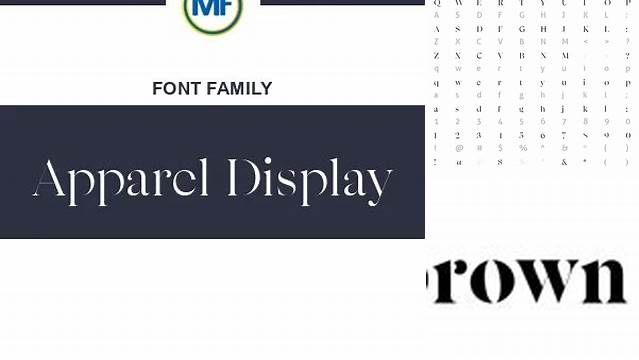
Hey guys! Are you on the hunt for the perfect apparel display font to make your designs pop? Look no further! Finding the right font can be a game-changer, especially when you're trying to create a visual identity that screams style and sophistication. Whether you're designing logos, posters, or even website headers, the font you choose can make or break your message. So, let's dive into the world of free apparel display fonts and explore some amazing options that you can download right now! We'll cover everything from classic serif fonts to modern sans-serif options, and even some cool script fonts that will add a touch of elegance to your projects. So, buckle up and get ready to discover the best free fonts for your next apparel design project!
1. Classic Serif Fonts for Apparel Displays
When it comes to apparel display, classic serif fonts are always a solid choice. These fonts exude a sense of timeless elegance and sophistication, making them perfect for brands that want to convey a sense of tradition and quality. Think of brands like Gucci or Ralph Lauren – they often use serif fonts to project a high-end image. A good serif font can add a touch of class to your apparel display, whether it's on a storefront sign or a product label. Some popular serif fonts include Times New Roman, Georgia, and Garamond. These fonts are highly legible and have a classic appeal that never goes out of style. But, you don't have to stick with the basics! There are tons of variations and unique serif fonts out there that you can download for free. Experiment with different weights and styles to find the perfect fit for your brand. Remember, the right serif font can make your apparel display look both professional and stylish. So, don't underestimate the power of a well-chosen classic font!
2. Modern Sans-Serif Fonts for Apparel Displays
If you're aiming for a more contemporary and minimalist look, modern sans-serif fonts are the way to go for your apparel display. These fonts are clean, crisp, and convey a sense of modernity and innovation. Think of brands like Nike or Adidas – they often use sans-serif fonts to project a sleek and forward-thinking image. A good sans-serif font can make your apparel display look fresh and up-to-date. Some popular sans-serif fonts include Helvetica, Arial, and Open Sans. These fonts are highly legible and have a clean, uncluttered look that works well in a variety of contexts. But, just like with serif fonts, there are tons of variations and unique sans-serif fonts out there that you can download for free. Consider fonts like Montserrat, Lato, or Roboto – they offer a modern feel without sacrificing readability. Experiment with different weights and styles to find the perfect fit for your brand. The right sans-serif font can make your apparel display look both professional and cutting-edge. So, if you're going for a modern vibe, sans-serif is your best bet!
3. Script Fonts for Elegant Apparel Displays
For those seeking to add a touch of elegance and personality to their apparel display, script fonts are an excellent choice. These fonts mimic the fluidity of handwriting and can convey a sense of luxury, creativity, and individuality. Imagine brands like Chanel or Dior – they often use script fonts in their logos and marketing materials to evoke a sense of sophistication and exclusivity. A well-chosen script font can instantly elevate your apparel display, whether it's on a garment tag or a promotional banner. Some popular script fonts include Brush Script, Pacifico, and Great Vibes. These fonts have a flowing, handwritten quality that adds a touch of artistry to your designs. However, it's important to use script fonts sparingly and ensure they are legible, especially in smaller sizes. Too much flourish can make your text difficult to read, which is the last thing you want. There are many beautiful script fonts available for free download, so take your time to find one that perfectly captures the essence of your brand. Experiment with different styles – from formal calligraphy to playful brushstrokes – to create a unique and memorable apparel display.
4. Vintage Fonts for Retro Apparel Designs
If you're aiming for a retro or vintage aesthetic, vintage fonts are your best friend for apparel displays. These fonts evoke a sense of nostalgia and can add character and charm to your designs. Think of classic brands like Coca-Cola or Levi's – they often use vintage-inspired fonts to tap into a sense of history and authenticity. A good vintage font can make your apparel display stand out, whether it's on a t-shirt design or a storefront window. There are tons of vintage fonts available for free download, ranging from bold, industrial styles to elegant, script-like options. Consider fonts with distressed textures or unique serifs to really capture that vintage feel. Some popular choices include Bebas Neue, Oswald, and Lobster. But, don't be afraid to explore lesser-known fonts to find something truly unique. Remember, the key to using vintage fonts effectively is to pair them with complementary design elements and colors that reinforce the retro vibe. So, if you're looking to add a touch of the past to your apparel display, vintage fonts are the way to go!
5. Bold Fonts for Eye-Catching Apparel Displays
When you need to make a statement, bold fonts are the way to go for your apparel display. These fonts command attention and can ensure your message is seen and remembered. Think of brands that want to project confidence and strength – they often use bold fonts in their logos and marketing materials. A bold font can make your apparel display pop, whether it's on a billboard or a website header. There are tons of bold fonts available for free download, in a variety of styles – from classic sans-serifs to quirky display fonts. Some popular choices include Montserrat Black, Roboto Bold, and Impact. But, don't limit yourself to the usual suspects! Explore different weights and styles to find a bold font that perfectly matches your brand's personality. Just remember to use bold fonts strategically – too much boldness can overwhelm the viewer. Pair them with lighter fonts and plenty of white space to create a balanced and visually appealing design. So, if you want your apparel display to make a lasting impression, a bold font is a must!
6. Narrow Fonts for Modern Apparel Branding
For a sleek and contemporary look in apparel branding, narrow fonts are an excellent choice. These fonts, also known as condensed fonts, offer a modern aesthetic while maximizing space, making them ideal for logos, labels, and other design elements where space is at a premium. The slender letterforms of narrow fonts project an air of sophistication and efficiency, often associated with high-fashion and minimalist brands. Several free options are available for download, ranging from sans-serif to serif styles, each with its unique character. Using narrow fonts can add a distinct touch to your apparel display, whether used in garment tags, product descriptions, or even in-store signage. Consider using narrow fonts to create a contrast with broader fonts for a dynamic typographic hierarchy, ensuring your message is not only legible but also visually engaging. For brands seeking a modern and streamlined image, narrow fonts are a versatile and effective tool.
7. Wide Fonts for Impactful Apparel Designs
If making a strong visual impact is your goal, wide fonts are a powerful tool for apparel designs. These fonts, with their expanded letterforms, demand attention and can fill space effectively, making them perfect for headlines, banners, and other large-format applications. The bold presence of wide fonts exudes confidence and can help your message stand out in a crowded marketplace. There are various wide fonts available for free download, ranging from robust sans-serifs to stylish serifs, each offering a different vibe. Incorporating wide fonts into your apparel display can significantly enhance its visual appeal, whether used on clothing, packaging, or promotional materials. When used judiciously, wide fonts can convey a sense of authority and creativity. Experiment with different weights and styles to find the perfect wide font that aligns with your brand's identity. For a design that speaks volumes, consider leveraging the commanding presence of wide fonts.
8. Rounded Fonts for Friendly Apparel Brands
To convey a sense of approachability and warmth, rounded fonts are an excellent choice for apparel brands. The soft, curved edges of these fonts project a friendly and inviting image, making them ideal for brands targeting a younger audience or those emphasizing comfort and casual wear. Rounded fonts can evoke feelings of playfulness and modernity, setting a positive tone for your brand's messaging. Numerous rounded fonts are available for free download, spanning various weights and styles, from light and airy to bold and substantial. Incorporating rounded fonts into your apparel display can create a welcoming atmosphere, whether used on signage, websites, or product labels. By choosing rounded fonts, you communicate a sense of openness and reliability, fostering a connection with your customers. For brands aiming to build trust and create a positive impression, rounded fonts are a valuable asset.
9. Distressed Fonts for Edgy Apparel Displays
For brands aiming to project a raw, unconventional image, distressed fonts are an ideal choice for apparel displays. These fonts, with their weathered and imperfect appearance, add character and authenticity to designs, making them perfect for streetwear, vintage-inspired clothing, or brands that value a rebellious aesthetic. Distressed fonts can evoke a sense of history and resilience, giving your brand a unique edge. Many distressed fonts are available for free download, ranging from subtle textures to heavily eroded designs. Utilizing distressed fonts in your apparel display can convey a sense of individuality and nonconformity, whether used on clothing, logos, or promotional materials. By embracing imperfections, distressed fonts help brands stand out and connect with customers who appreciate authenticity and originality. For a design that challenges the norm, consider the impactful presence of distressed fonts.
10. Slab Serif Fonts for Strong Apparel Messaging
When you need a font that commands attention and conveys authority, slab serif fonts are an excellent choice for apparel messaging. These fonts, characterized by their thick, block-like serifs, have a bold and sturdy appearance, making them perfect for headlines, logos, and other prominent design elements. Slab serif fonts project a sense of strength and reliability, often associated with vintage and industrial styles. Numerous slab serif fonts are available for free download, ranging from classic designs to modern interpretations. Incorporating slab serif fonts into your apparel display can create a powerful visual statement, whether used on signage, product labels, or promotional materials. Their distinct character ensures your message is not only seen but also remembered. For brands seeking to communicate confidence and durability, slab serif fonts are a reliable option.
11. Handwritten Fonts for Personal Apparel Touches
To add a personal and intimate touch to your apparel designs, handwritten fonts are an excellent choice. These fonts, mimicking the natural flow of handwriting, convey a sense of authenticity and individuality, making them perfect for brands aiming to connect with customers on a more personal level. Handwritten fonts can evoke feelings of warmth and creativity, adding a unique character to your messaging. Several handwritten fonts are available for free download, ranging from elegant scripts to casual penmanship styles. Utilizing handwritten fonts in your apparel display can create a welcoming and approachable feel, whether used on garment tags, thank-you notes, or website headers. By incorporating this personal touch, you can foster a stronger connection with your audience and differentiate your brand. For designs that feel genuine and heartfelt, consider the charm of handwritten fonts.
12. Calligraphy Fonts for Luxurious Apparel Brands
For brands seeking to exude sophistication and elegance, calligraphy fonts are an ideal choice for apparel branding. These fonts, inspired by the art of beautiful handwriting, convey a sense of luxury and refinement, making them perfect for high-end fashion, formal wear, and other premium apparel brands. Calligraphy fonts add a touch of timeless beauty and artistic flair to your designs. Many calligraphy fonts are available for free download, ranging from classic scripts to modern interpretations. Incorporating calligraphy fonts into your apparel display can elevate its visual appeal, whether used on logos, invitations, or promotional materials. Their graceful and flowing letterforms communicate quality and attention to detail. For brands aiming to project an image of opulence and style, calligraphy fonts are an invaluable asset.
13. Geometric Fonts for Modern Apparel Aesthetics
To achieve a sleek and contemporary look, geometric fonts are a top choice for modern apparel aesthetics. These fonts, characterized by their clean lines and precise shapes, convey a sense of modernity and efficiency, making them ideal for brands that value innovation and minimalism. Geometric fonts project a sense of order and clarity, often associated with technology and forward-thinking design. Numerous geometric fonts are available for free download, ranging from classic designs to avant-garde styles. Incorporating geometric fonts into your apparel display can create a visually striking and sophisticated look, whether used on websites, packaging, or in-store signage. Their distinct character ensures your brand stands out with a contemporary edge. For brands seeking a cutting-edge image, geometric fonts are a versatile and effective tool.
14. Outline Fonts for Creative Apparel Designs
To add a unique and eye-catching element to your apparel designs, consider using outline fonts. These fonts, featuring hollow letterforms, offer a creative and modern twist, making them perfect for headlines, logos, and other design elements where visual impact is key. Outline fonts create a sense of lightness and sophistication, allowing background colors and textures to show through. Many outline fonts are available for free download, ranging from bold and chunky styles to delicate and refined designs. Incorporating outline fonts into your apparel display can make it stand out and add a touch of originality, whether used on clothing, posters, or promotional materials. Their distinct appearance ensures your message is noticed. For brands seeking to express creativity and innovation, outline fonts are a valuable design asset.
15. 3D Fonts for Dynamic Apparel Displays
For an apparel display that truly pops, 3D fonts can add a dynamic and engaging visual element. These fonts, designed to appear three-dimensional, create depth and dimension, making them perfect for headlines, logos, and other design features that need to capture attention. 3D fonts convey a sense of modernity and creativity, often associated with technology and innovation. Several 3D fonts are available for free download, ranging from bold and chunky styles to sleek and futuristic designs. Incorporating 3D fonts into your apparel display can significantly enhance its visual impact, whether used on websites, posters, or in-store signage. Their unique appearance ensures your brand stands out in a crowded marketplace. For brands seeking to make a bold statement, 3D fonts are an effective and versatile option.
16. Layered Fonts for Unique Apparel Typography
To create truly unique and captivating apparel typography, layered fonts offer an exceptional solution. These fonts, designed with multiple layers that can be combined in various ways, provide endless possibilities for customization and visual effects. Layered fonts add depth and dimension, allowing you to create striking headlines, logos, and other design elements. They convey a sense of creativity and sophistication, often associated with bespoke and high-end designs. A variety of layered fonts are available for free download, ranging from vintage-inspired styles to modern geometric designs. Incorporating layered fonts into your apparel display can significantly enhance its visual appeal, whether used on clothing, packaging, or promotional materials. Their versatility ensures your brand stands out with a unique and personalized touch. For brands seeking to push the boundaries of design, layered fonts are an invaluable tool.
17. Color Fonts for Vibrant Apparel Branding
For vibrant apparel branding, color fonts offer a revolutionary way to incorporate visual interest directly into your typography. Unlike traditional fonts, color fonts include color information within the font file itself, allowing for multicolored letters and intricate designs. This eliminates the need for manual layering and coloring, streamlining the design process. Color fonts add a dynamic and modern element to your messaging, making them perfect for logos, headlines, and other key design elements. They convey a sense of creativity and innovation, often associated with contemporary brands. Numerous color fonts are available for free download, ranging from playful and whimsical styles to sophisticated and elegant designs. Incorporating color fonts into your apparel display can make it stand out and create a lasting impression, whether used on websites, posters, or promotional materials. For brands seeking to make a bold statement and embrace the future of typography, color fonts are an exciting option.
18. Variable Fonts for Flexible Apparel Designs
Variable fonts represent the future of typography, offering unparalleled flexibility and control over your apparel designs. Unlike traditional fonts with fixed weights and styles, variable fonts allow you to adjust various parameters, such as weight, width, and slant, along a continuous scale. This means you can fine-tune the font to perfectly match your design needs, creating a unique and cohesive look. Variable fonts are also incredibly efficient, as a single font file can contain a multitude of styles, reducing file sizes and improving website performance. Several variable fonts are available for free download, ranging from classic styles to contemporary designs. Incorporating variable fonts into your apparel display allows for a high degree of customization and visual harmony, whether used on websites, logos, or packaging. For brands seeking cutting-edge design capabilities and optimal performance, variable fonts are a game-changer.
19. Display Fonts with Unique Ligatures for Apparel
Enhance the sophistication of your apparel display with display fonts featuring unique ligatures. Ligatures, where two or more letters are combined into a single glyph, add a touch of elegance and personality to your typography. These special characters can create a more seamless and visually appealing flow, particularly in logos, headlines, and other prominent design elements. Display fonts with ligatures convey a sense of craftsmanship and attention to detail, making them ideal for brands seeking a refined image. Numerous display fonts with unique ligatures are available for free download, ranging from classic serifs to modern scripts. Incorporating ligatures into your apparel display can elevate its visual appeal and set it apart from the competition, whether used on garment tags, websites, or promotional materials. For brands aiming to make a lasting impression, these fonts are a valuable asset.
20. Condensed Fonts for Space-Saving Apparel Branding
In the world of apparel branding, maximizing space is often a key consideration. Condensed fonts, also known as narrow fonts, offer a stylish and efficient solution. These fonts feature compressed letterforms, allowing you to fit more text into limited spaces without sacrificing readability. Condensed fonts are perfect for logos, labels, and other design elements where real estate is at a premium. They convey a sense of modernity and sophistication, often associated with high-fashion and minimalist brands. Several condensed fonts are available for free download, ranging from sans-serif styles to elegant serifs. Incorporating condensed fonts into your apparel display can create a clean and streamlined look, whether used on business cards, product descriptions, or in-store signage. For brands seeking to optimize space while maintaining visual appeal, condensed fonts are a practical and stylish choice.
21. Best Font Pairings for Apparel Design
Choosing the right font pairings is crucial for creating a cohesive and visually appealing apparel design. Pairing fonts effectively involves selecting complementary typefaces that work harmoniously together, enhancing readability and conveying your brand's message. A classic pairing often includes a serif font for body text and a sans-serif font for headlines, creating a balanced and professional look. Experimenting with different styles, such as pairing a script font with a clean sans-serif, can also add visual interest and personality. When selecting font pairings for apparel, consider the overall aesthetic you want to achieve – whether it's modern, vintage, elegant, or playful. Numerous resources offer suggestions for successful font combinations, and many free fonts are available for download that pair well together. By carefully choosing your font pairings, you can ensure your apparel display is both visually engaging and effective.
22. Choosing the Right Font Weight for Apparel
The font weight you choose significantly impacts the readability and visual impact of your apparel display. Font weight refers to the thickness of the typeface, ranging from light to bold. Selecting the appropriate weight ensures your text is legible and conveys the desired tone. Lighter weights are often used for body text, creating a delicate and sophisticated feel, while bolder weights are ideal for headlines and logos, commanding attention and projecting confidence. When choosing the right font weight for apparel, consider the size of the text and the background color – darker backgrounds often require bolder weights for optimal readability. Experimenting with different weights within the same font family can also create a visual hierarchy and add interest to your design. Many free fonts are available for download in various weights, allowing you to fine-tune your apparel typography and achieve the perfect balance.
23. Font Licensing for Free Apparel Fonts
Understanding font licensing is crucial when using free apparel fonts in your designs. Font licenses dictate how you can use a particular typeface, whether it's for personal or commercial projects. Many free fonts come with specific restrictions, such as limitations on embedding them in digital documents or using them for for-profit purposes. Before incorporating a free font into your apparel display, always carefully review the license agreement. Some fonts are released under open-source licenses, allowing for broad usage, while others may require attribution or have restrictions on modification. Ignoring font licensing terms can lead to legal issues, so it's essential to ensure you're using fonts legally and ethically. Numerous websites offer free fonts for download with clear licensing information, making it easier to find typefaces that meet your needs and usage rights.
24. Where to Find Free Fonts for Apparel Displays
Finding high-quality free fonts for apparel displays can significantly enhance your design projects without breaking the bank. Numerous online resources offer a vast selection of typefaces, ranging from classic styles to contemporary designs. Websites like Google Fonts, Font Squirrel, and DaFont are popular destinations, providing a wide array of free fonts with clear licensing information. These platforms offer user-friendly search filters and previews, making it easy to discover fonts that match your specific needs and aesthetic preferences. When browsing for free fonts, pay attention to the font's legibility, versatility, and compatibility with your design software. Always check the license agreement to ensure you can use the font for your intended purpose, whether it's for personal or commercial projects. By exploring these resources, you can find a treasure trove of free fonts for download and elevate your apparel typography.
25. Font Management Tools for Apparel Designers
Effective font management is essential for apparel designers, ensuring a streamlined workflow and consistent branding. As you accumulate a collection of fonts, organizing and managing them becomes crucial to avoid confusion and ensure easy access. Font management tools offer solutions for installing, activating, and deactivating fonts, as well as resolving conflicts and preventing font corruption. These tools allow you to create font sets for specific projects, keeping your typefaces organized and accessible. Some popular font management applications include Adobe Fonts, FontBase, and RightFont. Investing in a reliable font management tool can save you time and frustration, allowing you to focus on your apparel designs rather than wrestling with technical issues. By optimizing your font management process, you can ensure a smooth and efficient creative workflow.
26. The Psychology of Fonts in Apparel Branding
The psychology of fonts plays a crucial role in apparel branding, influencing how consumers perceive your brand's personality and values. Different typefaces evoke distinct emotions and associations, making font selection a strategic decision. Serif fonts, with their traditional serifs, often convey a sense of authority and trustworthiness, while sans-serif fonts project a modern and clean image. Script fonts add a touch of elegance and creativity, while bold fonts command attention and exude confidence. When choosing fonts for apparel branding, consider the target audience and the message you want to communicate. A playful, rounded font might be ideal for a children's clothing brand, while a sophisticated script font could be perfect for a luxury fashion label. By understanding the psychology of fonts, you can select typefaces that resonate with your customers and reinforce your brand identity. Numerous free fonts are available for download in a variety of styles, allowing you to experiment and find the perfect match for your brand's personality.
27. Common Font Mistakes in Apparel Design and How to Avoid Them
Avoiding common font mistakes is essential for creating professional and effective apparel designs. One frequent error is using too many fonts within a single design, which can create a cluttered and confusing visual. Sticking to a maximum of two or three typefaces ensures a cohesive and harmonious look. Another common mistake is selecting fonts that are difficult to read, especially in small sizes or against busy backgrounds. Prioritizing legibility is crucial, so test your fonts in various contexts to ensure they're easily readable. Overusing decorative or script fonts can also detract from your message, as these typefaces are best reserved for headlines or logos. Be mindful of font licensing and ensure you have the rights to use free fonts for apparel in your commercial projects. By avoiding these common font mistakes, you can elevate your apparel design and communicate your brand's message effectively.
28. Future Trends in Apparel Typography
The world of apparel typography is constantly evolving, with new trends and technologies shaping the future of font design. Variable fonts, which allow for customizable weights, widths, and styles, are gaining traction, offering designers unparalleled flexibility and control. Color fonts, which incorporate color directly into the font file, are also emerging as a popular choice for creating vibrant and eye-catching designs. Geometric and minimalist typefaces continue to be in vogue, reflecting the broader trend towards clean and streamlined aesthetics. Handwritten and script fonts, with their personal and artistic touch, remain a strong trend in apparel branding, adding warmth and authenticity. Staying informed about these future trends in apparel typography allows designers to create cutting-edge and visually compelling designs. Numerous resources offer insights into the latest font design innovations, and many free fonts are available for download that incorporate these trends.
29. The Importance of Legibility in Apparel Display Fonts
In apparel display fonts, legibility reigns supreme. No matter how stylish a typeface may be, if it's difficult to read, it defeats the purpose of communication. Legibility refers to how easily individual characters can be distinguished from each other, ensuring your message is conveyed clearly and effectively. Factors like x-height, character spacing, and font weight all contribute to legibility. When choosing display fonts for apparel, consider the context in which they will be used, such as signage, labels, or websites. Bolder weights and simpler letterforms are often more legible at smaller sizes or from a distance. Avoid overly decorative or script fonts for body text, as these can strain the reader's eye. Prioritizing legibility ensures your apparel display communicates effectively and leaves a positive impression on your audience. Numerous free fonts are available for download that prioritize readability without sacrificing style.
30. How to Test Your Apparel Display Font Choices
Testing your apparel display font choices is a crucial step in the design process, ensuring your typography works effectively in real-world applications. Before finalizing your font selection, try it out in various sizes, weights, and contexts. Display your chosen font on different backgrounds, both light and dark, to assess its legibility. Print out your design and view it from a distance to see how it looks in a physical space. Mock up your font on actual apparel, such as t-shirts or labels, to ensure it complements the garment's design. Test your font on digital devices, such as computers and smartphones, to verify its appearance across platforms. Gathering feedback from peers and potential customers can also provide valuable insights. By thoroughly testing your apparel display font choices, you can identify any issues and make informed decisions that enhance the effectiveness of your typography. Numerous resources offer free font previews and testing tools, making it easier to evaluate your options.